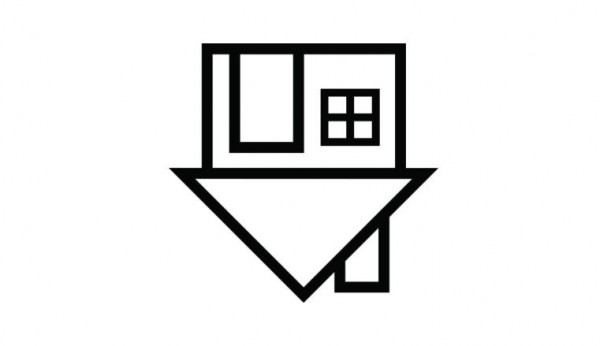
The Neighbourhood Font
BandThe Neighbourhood, stylized as “THE NBHD”, is an American alternative rock group formed in August 2011.
The above is the upside down house logo for the group, as seen on the cover of their debut album I Love You. In addition to the upside down house symbol, there are two other symbols on the cover, one is the eye inside a triangle and the other is the heart symbol. When asked about the symbolism behind them in an interview, the Neighbourhood guys simply replied, “our record is called I Love You. (eye heart U)”.
This is the band logo seen from their official website, which features the stylized band name in a bold geometric sans font and the font is probably Gotham Bold, a famous typeface that is also used by Barack Obama in his 2008 presidential campaign.